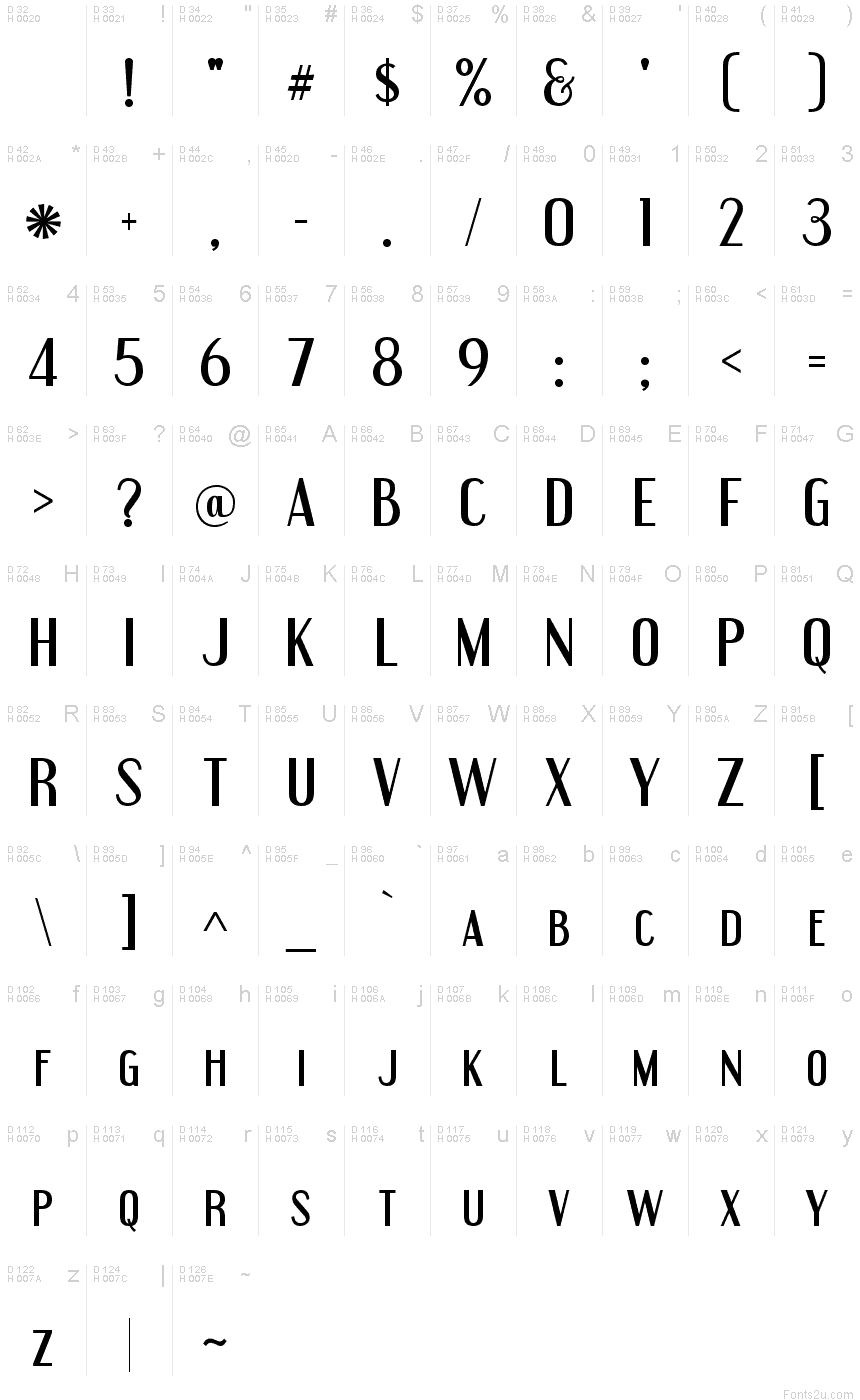
Engebrechtre
Engebrechtre font by Ray Larabie is a free condensed sci-fi sans serif typeface. Its tall, tightly packed letters and razor-straight stems create a rigid vertical rhythm that feels both industrial and futuristic, like signage on the side of a starship. The narrow shapes save horizontal space without losing impact, so even short words stack up into striking, totem-like blocks of black ink.
Using Engebrechtre, bold titles and short phrases snap into focus, making this free font a natural fit for movie posters, game logos, sci-fi book covers, album art, tech branding, and event flyers. It shines at large sizes, especially with a bit of extra letterspacing. Pair it with a simple grotesque or humanist sans for body text to keep the overall layout clean and readable.